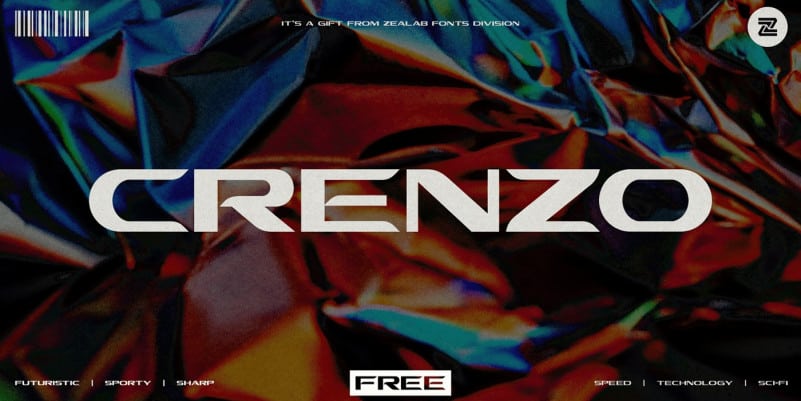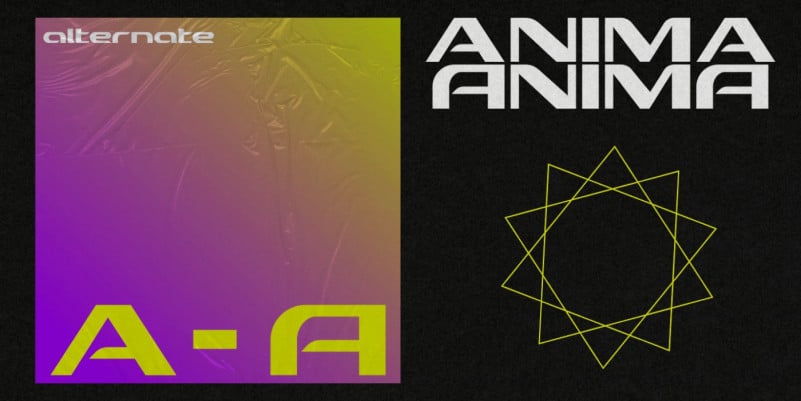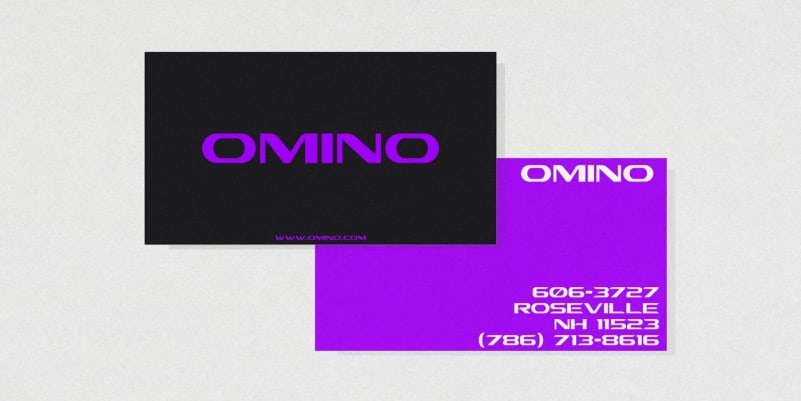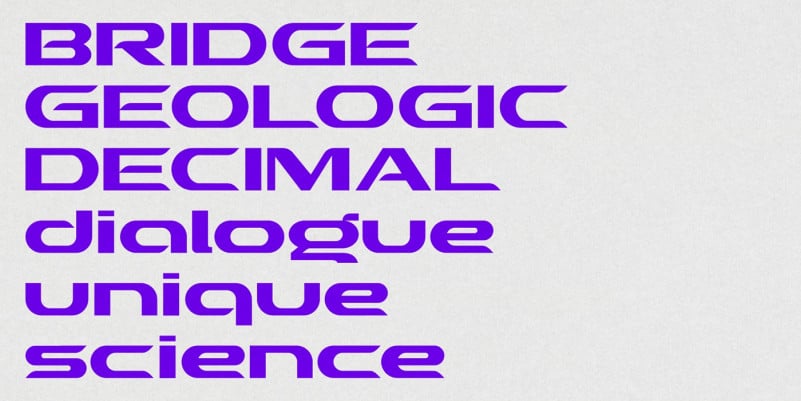
Crenzo Display Font is perfect for your up coming projects. It’s a new free sans serif font created by Zea Fonts. Crenzo is a futuristic modern font that features upper & lowercase characters, numbers & punctuation. It’s well suited for use in the tech & gaming space for logos, titles, packaging, web design, apps & much more.